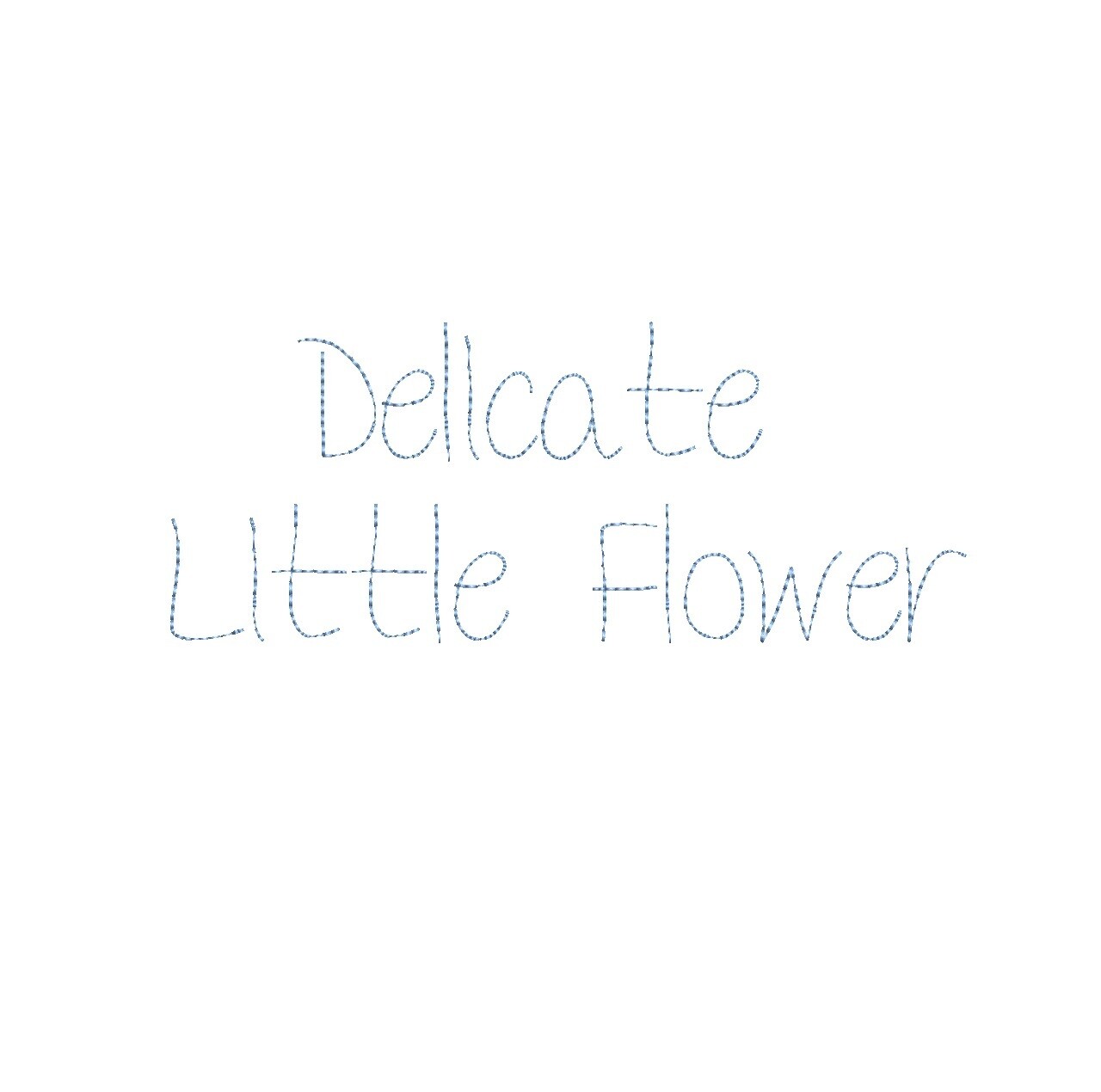
Introducing the Delicate Little Flower Bean Stitch ESA font - your ultimate digitizing solution compatible with Wilcom Studio e4.5.6 and Hatch 3 versions and up. Embrace the grace of this font, perfect for various embroidery projects. Its intricate bean stitch style adds a touch of elegance to apparel, accessories, and home decor. With seamless curves and impeccable lines, the Delicate Little Flower ESA font guarantees flawless embroidery results. Impress clients and express your creativity effortlessly with this user-friendly font, seamlessly integrating with your preferred software. Let your designs bloom with sophistication - get it now!